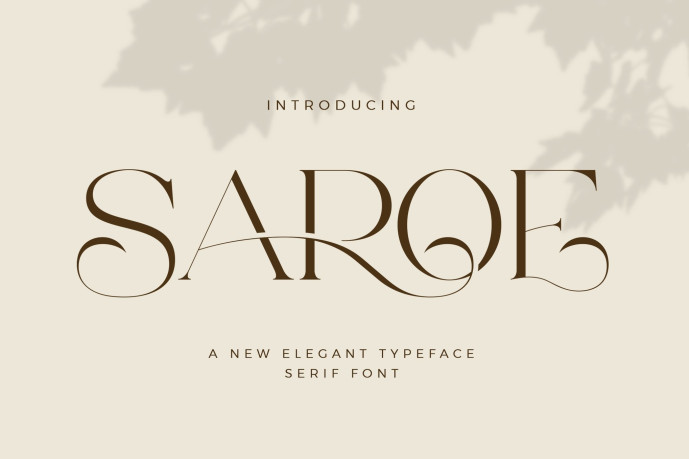
Saroe Elegant Serif Font
Designer: Aqeel-Art
Saroe Stylish Ligature Typeface, inspired by the famous minimalist logo perfect for the purposes of designing templates, brochures, videos, advertising branding, logos and more.
• Ligatures